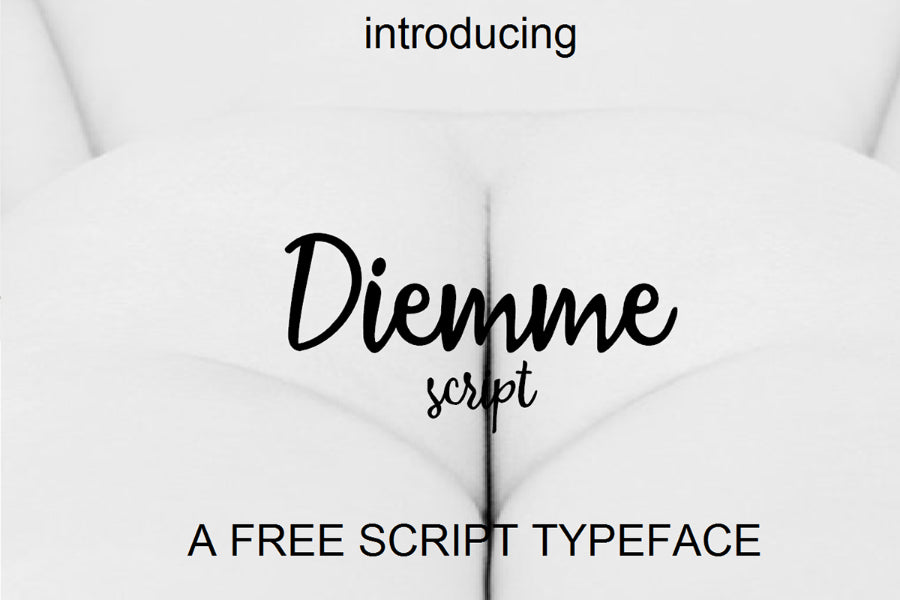
Free Diemme Script Font
Free diemme script font for graphic designers that need to present their work in a professional way. Free Design Resources has created this amazing and beautiful free font. This is absolutely fancy font so you can easily make world-class designs.